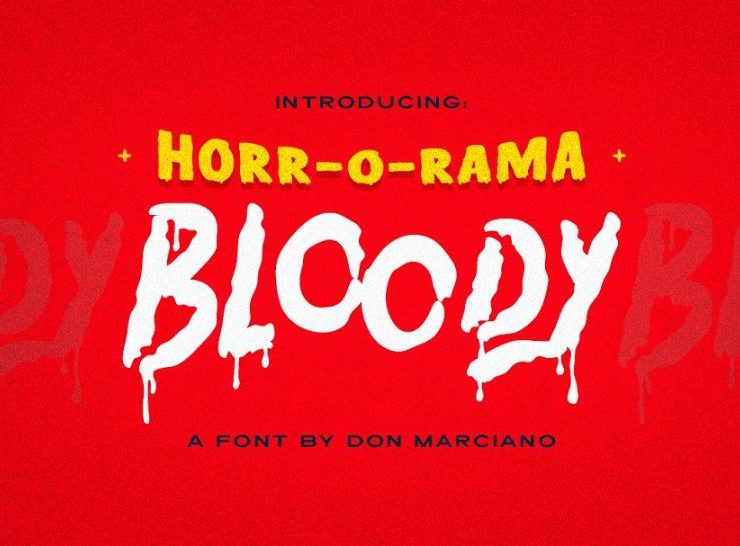
Spooky-text
Looking for the best spooky fonts for your next halloween design projects? These are the best fonts that will give a creepy look to any kind of projects so make the best use of it. These fonts are carefully handcrafted by graphic designers so that you can give a scary and authentic look to your projects. Use these fonts for designing both print and web design templates so you can design unique templates for your clients. You can scale the fonts according to your design projects without any quality loss. Design halloween party flyer and trick or treat flyers by using these fonts.
In this article we have collected some of the best free and premium spooky fonts from different websites. Some of the best fonts that are included in the article are bloody digital fonts, thorny style font, doodle style font and blood dripping style font so choose the best font that suits you. Use the fonts for designing halloween party flyers, invitation card templates, trick or treat flyers and greeting card designs because these are perfect fonts. Select the best fonts from below collection and design unique projects.
Scary Halloween Spooky Fonts
Scary halloween font with wavy look
If you are looking to give a bloody style look to your design projects then these fonts are perfect for you. Use these fonts for designing social media posts, website banners, wedding card design templates and invitation cards. Use the fonts so that you can design eye cathy print and web design templates for your clients. In this pack you get both TTF and OTF format style display fonts. Use these fonts for designing horror photoshop actions.
Thorny and Gothic Style Spooky Fonts
This is a thorny style spooky fonts so that you can give a spooky look to your print design templates. These fonts are best suitable for designing spooky logo designs, poster templates and social media posts. You can use these fonts for designing movie posters, movie titles and websites so make the best use of it. You also get numerical and punctuations in the download so you can design complex projects. Use spooky illustrations along these fonts.
Creepy Style Spooky Fonts
This is a comic style typefaces so that you can design horror style design projects for your clients. These fonts are designed as vector elements so you can customize the fonts according to your design projects. In this pack you get numbers and special characters that you canuse in your projects. Use fonts with halloween illustrations so that you can design unique projects.
Cute and Creepy Style Font
If you are looking to give a comic style look to your halloween print templates then these fonts are perfect for you. Use these fonts for designing greeting cards, invitation cards and social media posts. You get these typefaces with uppercases and lowercases styles that will allow you to design unique projects. These fonts are vector styles so that you can design the projects with large fonts without quality loss.
Doodle Style Scary Spooky Fonts
Doodle Style Scary Font  to Give Grungy Look to Templates
This is a grunge style fonts that will give a spooky look to your design projects. The wavy style look of the fonts will give an authentic look to the print and web design projects. In this pack you get the fonts with regular and grunge texture on it. You also get doodle elements that are shown in the preview. Mix and match the doodles with the fonts to design high quality print and web design templates.
Sinister Style Display Font
Rough Style Ghost Font
Condensed Style Display Typeface
Blood Dripping Style Font
All Caps Eerie Fonts
Hand Drawn Spooky Font
Cute Doodle Witchy Font
Creative Serif Style Display Font
Chalk Style Chilling font
Party Style Cursed Font
Creative Gothic Style Text
Halloween fonts for designing greeting cards and posters
Creative Shadow Style Font
Ominous Design font
Enchanted Style Display font
Use these fonts for designing unique halloween related design projects. Also use for designing titles for scary videos and movies.